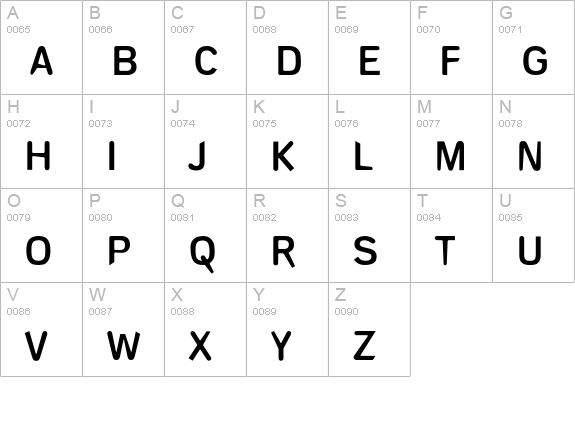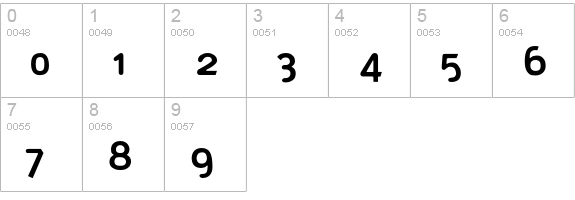
DeconStruct-Bold Font Details
DeconStruct-Bold is a strong, high-contrast variant in the DeconStruct typeface family \xE2\x80\x94 well suited to headlines, attention-grabbing titles, and strong calls-to-action.
DeconStruct-Bold is a bold and modern font that exudes strength and confidence. Its clean lines and geometric shapes make it perfect for making a statement in any design project. Whether you're creating a poster, logo, or branding materials, DeconStruct-Bold will grab attention and leave a lasting impression. What's even better is that DeconStruct-Bold is available for free download at FontsMarket.com. This means you can easily access this stylish font and incorporate it into your projects without any cost. Don't miss out on the opportunity to enhance your designs with the sleek and powerful DeconStruct-Bold font - download it for free today!